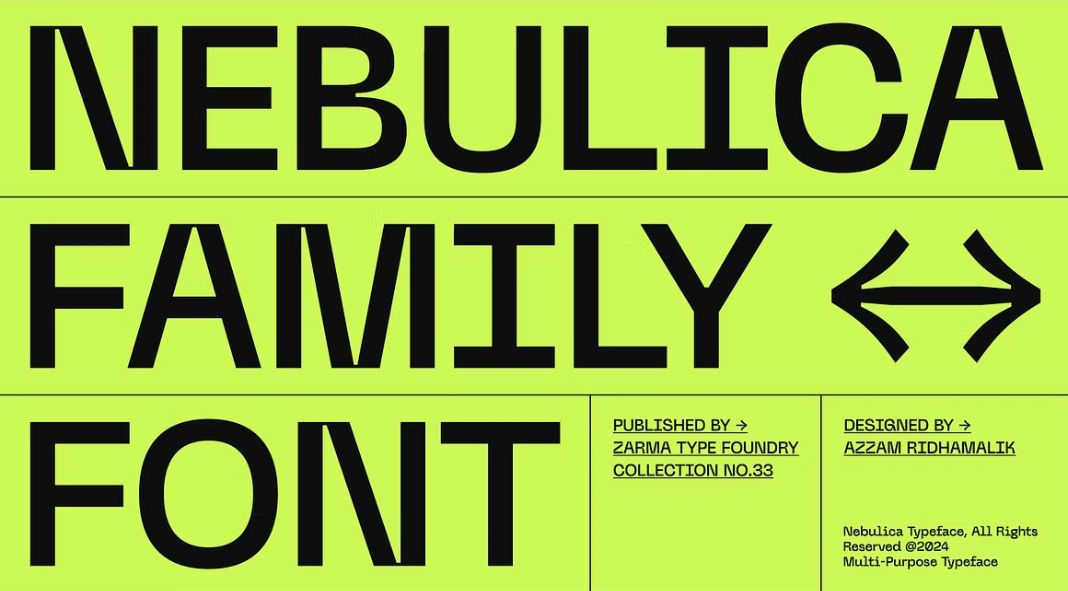
Take a Look Into the Future with Nebulica: A Grotesk Font for Modern Design
Zarma Type takes us on a journey to the forefront of design with Nebulica, a truly unique font family that merges the clean lines of grotesque fonts with the structured precision of monospaced typefaces. The result? A strikingly modern aesthetic that injects personality into your projects.
Inspired by the Urban Landscape
Nebulica draws inspiration from the contemporary design trends that define our cities. Its character set boasts unique features like ink traps and slanted stems, ensuring both visual consistency and exceptional legibility across a wide range of design applications.
Boundless Creativity with Variable Fonts
Nebulica pushes the boundaries further by offering variable font formats. This opens a treasure trove of options for designers, allowing them to access and manipulate a vast array of unique typographic looks within a single font file.
Versatility at Your Fingertips
Nebulica is more than just a pretty face. It’s a powerhouse of versatility, offering extensive OpenType features that empower designers with unmatched flexibility. This, combined with its exceptional readability, makes Nebulica the perfect choice for a variety of design projects.
A World of Languages, A Universe of Design
With over 435 glyphs and multilingual support for an impressive 88+ languages, Nebulica transcends borders. It also includes arrows and symbols, making it a comprehensive solution for designers with global ambitions.
Applications Abound
Whether you’re crafting futuristic layouts, minimalist branding, or cutting-edge user interfaces, Nebulica’s sleek and sophisticated look perfectly captures the essence of modern design.
Key Features:
- Uppercase, Lowercase, Numbers, Punctuation, Arrows, and Symbols
- Ligatures for a polished look
- OpenType features for enhanced control
- PUA Encoded Characters for broader symbol access
- Extended Latin and comprehensive Multilingual Support
Nebulica is a font family for the designer who dares to push the boundaries. With its unique blend of functionality and style, Nebulica is the perfect choice for anyone looking to create truly modern and impactful designs.